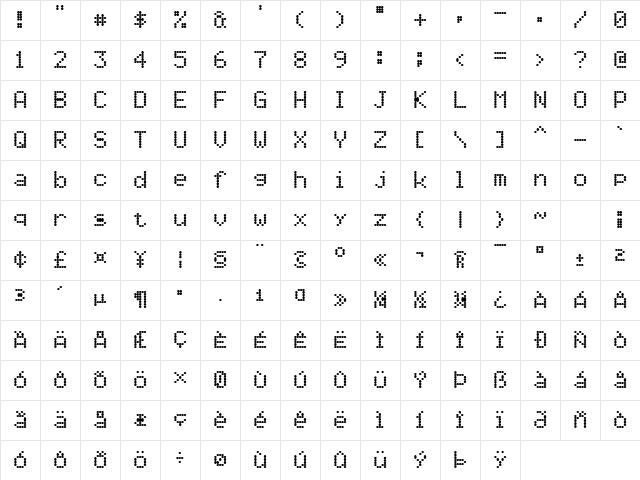
5by7 Regular Free Font
5by7 Regular
Foundry: Peter Wiegel
Design Context for 5by7
5by7 is a composed and adaptable typeface that performs quietly and consistently across a wide range of design contexts.
Who designed the 5by7 Regular font?